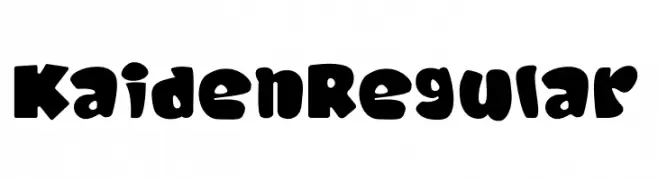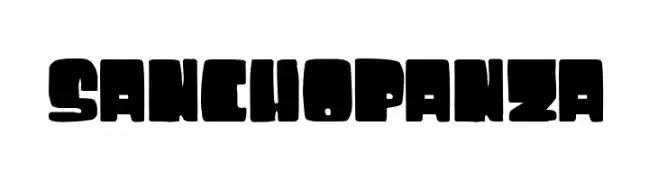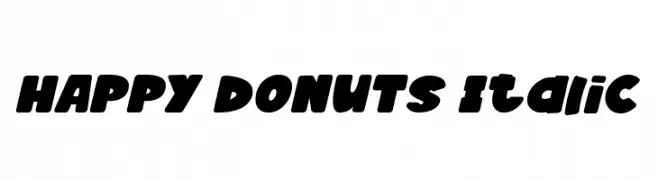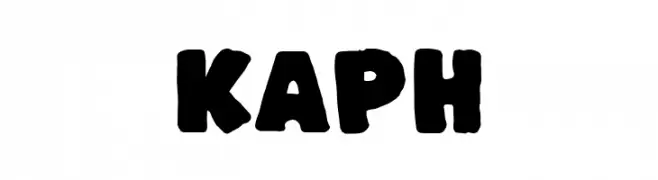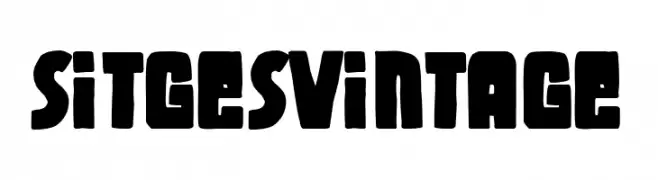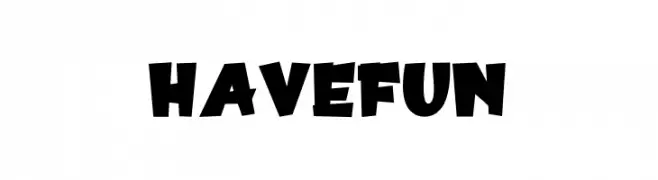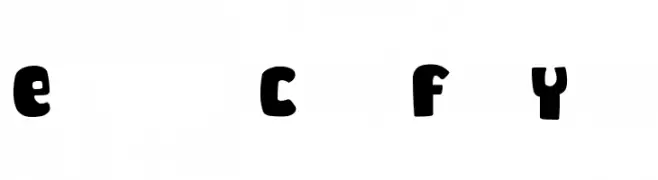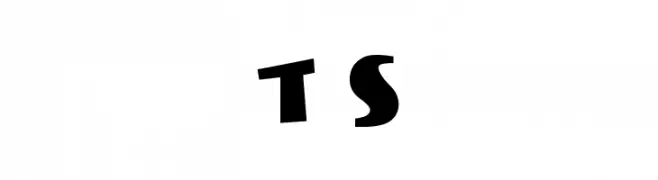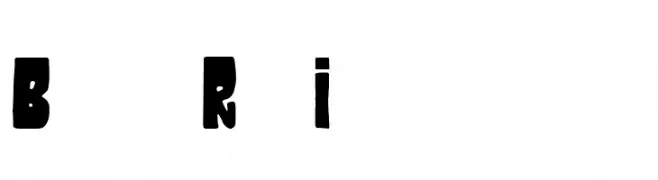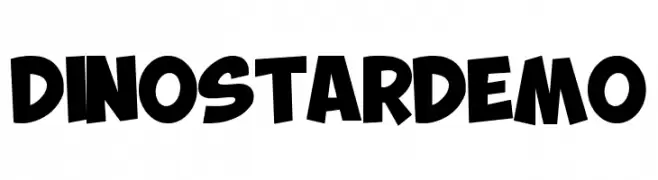
A playful, bold font with rounded, chunky characters ideal for children's projects.
A bold, playful font with rounded edges and a chunky, whimsical style.
A bold, playful font with chunky, rounded characters and a whimsical style.
A playful, bold, and slightly italicized font with a chunky, rounded style.
A bold, playful font with rounded, chunky letters perfect for a youthful and fun vibe.
A bold, rounded font with a playful and chunky style.
A bold, chunky, and playful font with a retro-modern vibe.
A bold, rounded font with a playful and chunky style.
A bold, vintage-style font with a chunky, hand-crafted appearance.
A playful, bold font with chunky, hand-drawn letterforms and a whimsical style.
A playful, bold font with rounded, chunky letters.
A bold, rounded font with a playful and chunky style.
A bold, playful font with chunky, irregular letterforms and a hand-drawn appearance.
A bold, playful font with chunky, irregular forms and a hand-drawn feel.
A bold, playful font with rounded edges and a chunky design.
A bold, playful font with chunky, whimsical characters.
A playful, bold font with a chunky, hand-drawn style.
A bold, playful font with chunky, hand-drawn letters.
A bold, playful font with chunky, textured letterforms and a hand-drawn feel.
A playful, bold font with chunky, rounded characters and a whimsical style.
A bold, playful typeface with chunky, whimsical characters.
A bold, geometric font with playful, chunky characters.
A bold, playful font with rounded edges and a chunky appearance.
A bold, playful font with a unique striped pattern and rounded, chunky characters.
A playful, bold font with rounded, chunky letters ideal for fun and whimsical designs.